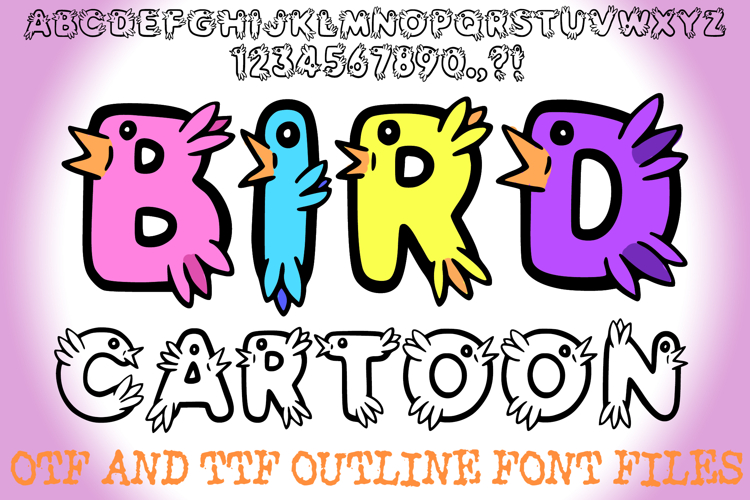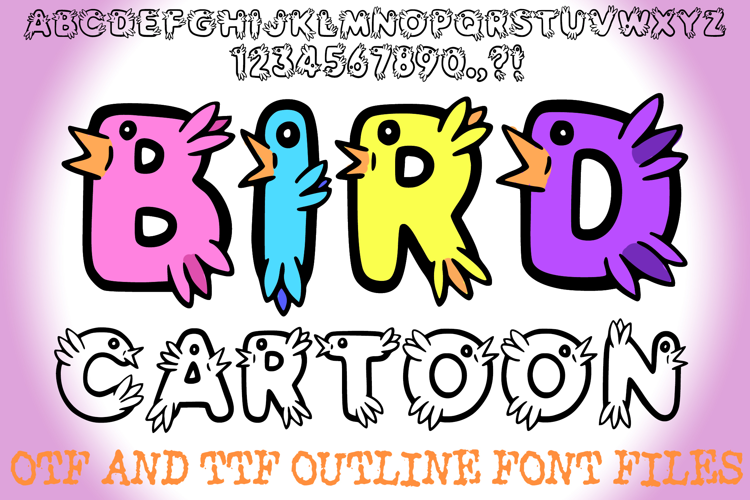
Bird Cartoon Alphabet Lettering ABC Text Font Handwriting
Take flight with the adorable Bird Cartoon Alphabet Font! This truly unique display typeface transforms every letter and number into a charming, chubby cartoon bird. Each character features little wings, a tiny beak, and expressive eyes, giving your text an immediate sense of cheer and playfulness.
This font is perfect for any project targeting children, nature lovers, or anyone who wants a dose of whimsical charm. Use it for educational materials, nursery decor, birthday invitations, apparel design, animal rescue branding, or fun headers and logos. The bold, rounded letterforms ensure high visibility and easy readability for kids.
The Bird Cartoon Alphabet Font is a versatile Hand Drawn Font that adds a sweet, memorable touch to crafts